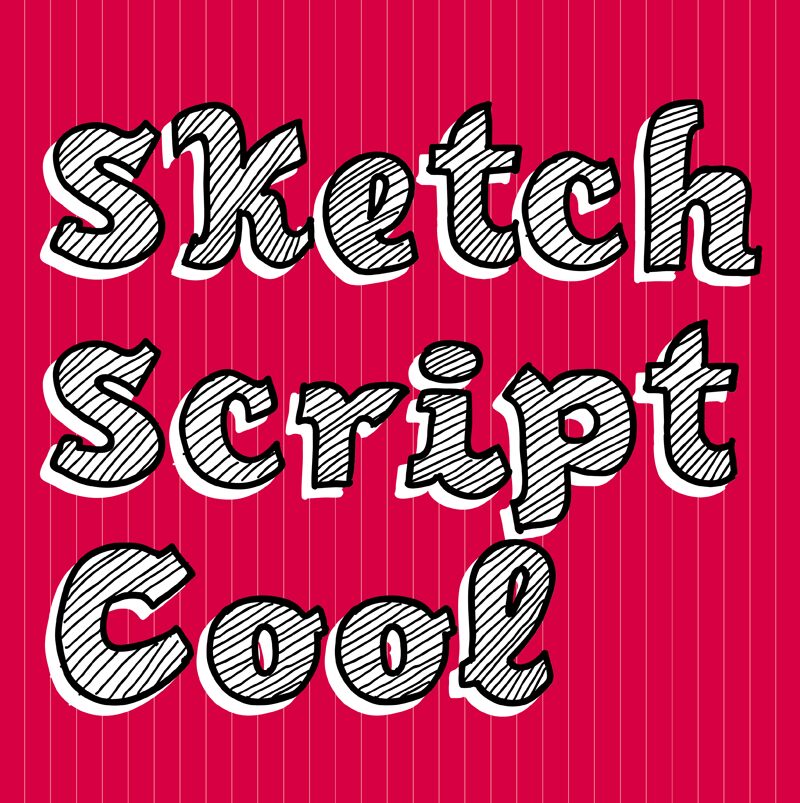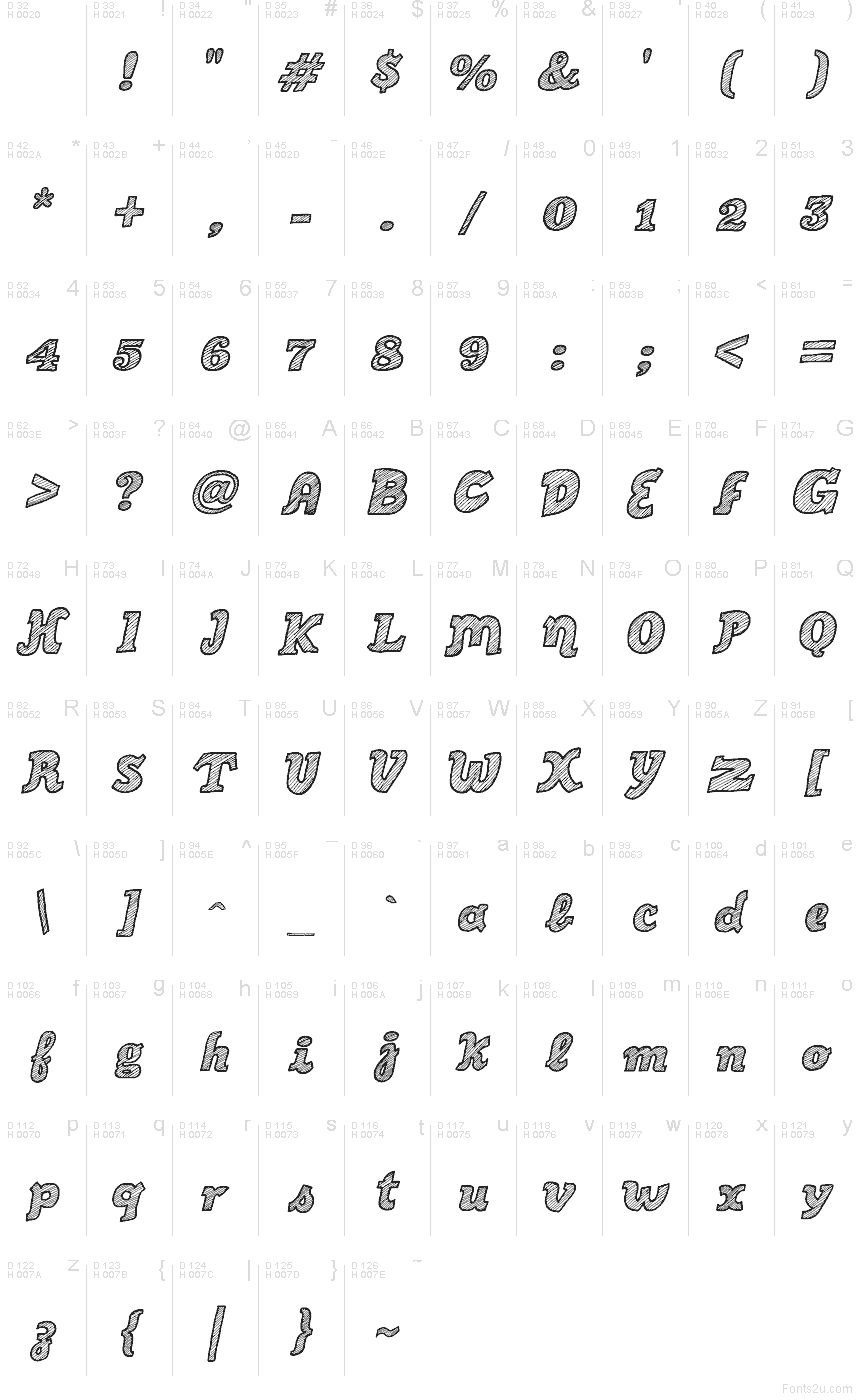
Sketch Script Cool Italic
Sketch Script Cool Italic font by Galdino Otten Fonts is a free decorative brush script typeface with a hand-sketched twist. Each letter looks as if it’s been cross‑hatched in pencil, giving the smooth, slanted script a gritty, notebook-doodle texture. The energetic strokes and playful shading make words feel lively and informal, like a title scribbled in the margins of a favorite sketchbook.
Using Sketch Script Cool Italic, you can add personality to poster titles, zines, DIY packaging, kids’ book covers, stickers, social graphics, or header lettering. The texture reads best at larger sizes, where the scratchy lines can really show through. Pair this free font with a simple, geometric sans serif for smaller copy to keep things readable while the headline does all the fun, sketchy talking.